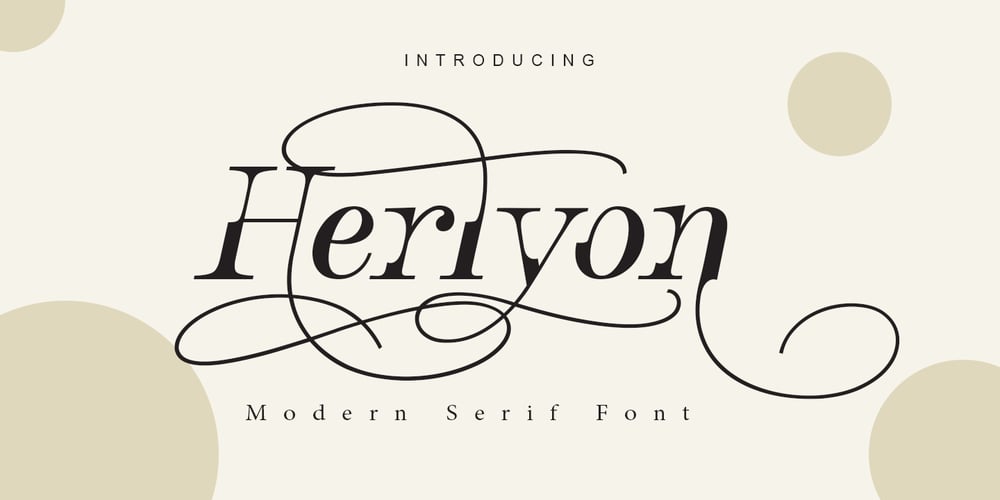
Herlyon Font Family was designed by Kurniadi Saputra and published by Cooldesignlab. Herlyon contains 1 styles and family package options. Herlyon is a serif font with an elegant and classy look. Each Herlyon glyph font is designed with natural and beautiful curves. Herlyon typography can help you complete various projects such as luxury brand logos, journals, business cards, titles, products, social media posts, web and much more. If you’re involved in a project that requires beautiful, professional writing, the Herlyon font is perfect to help you get it done.Herlyon font features open type, kerning, ligature. Herlyon fonts include uppercase, lowercase, numbers, punctuation and multilingual support.